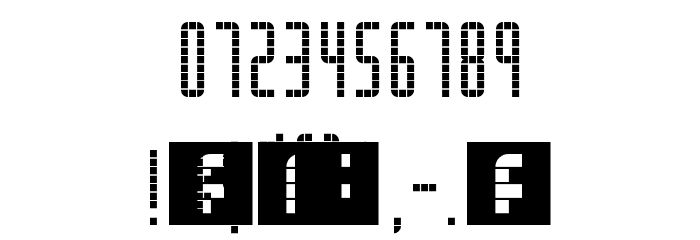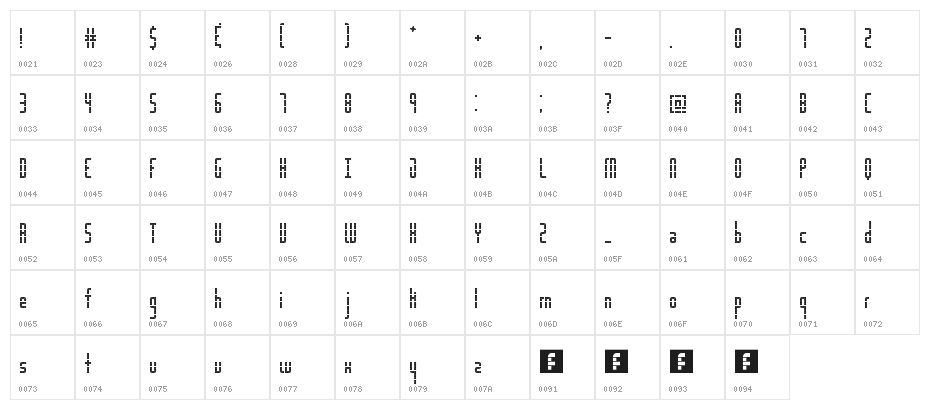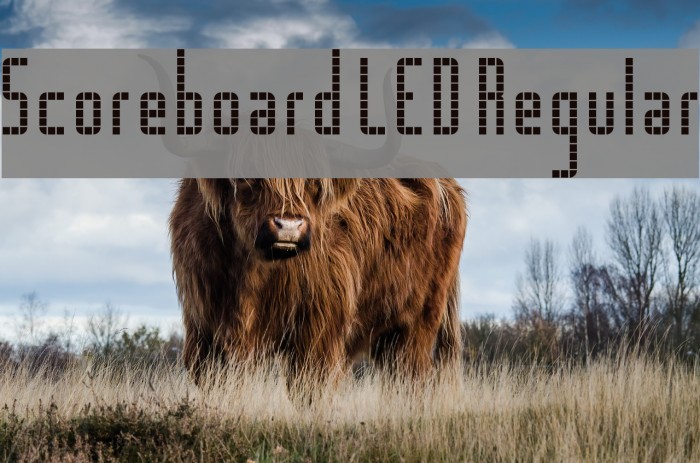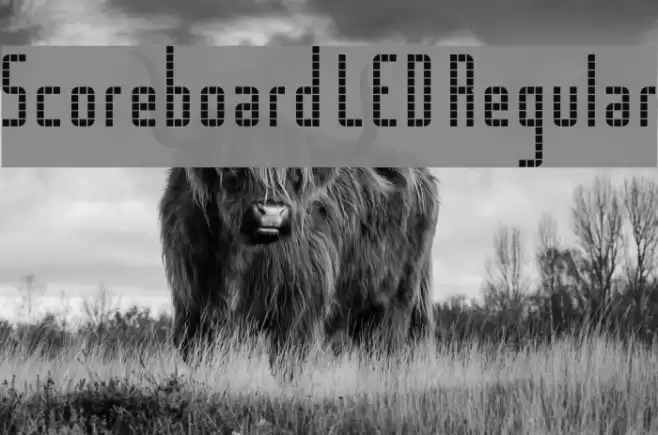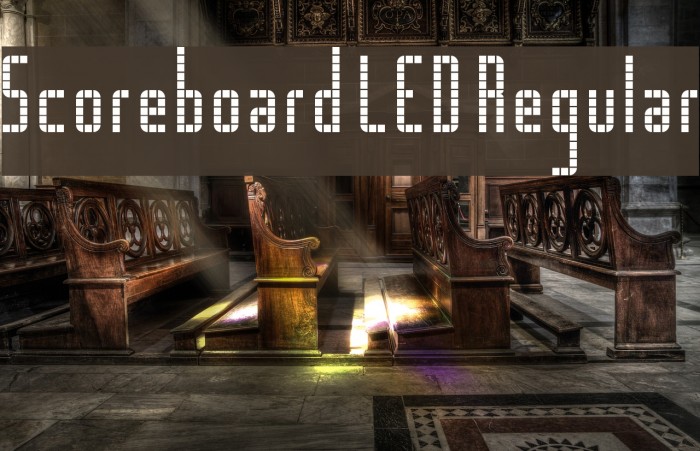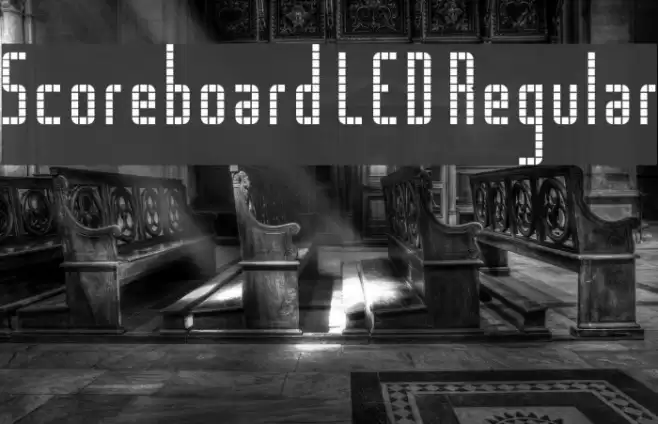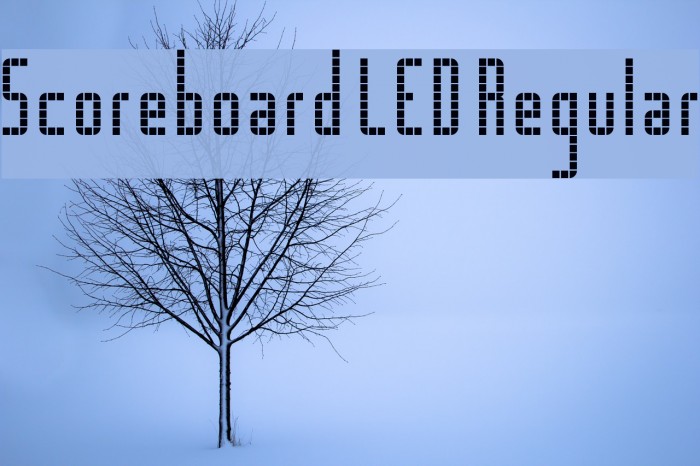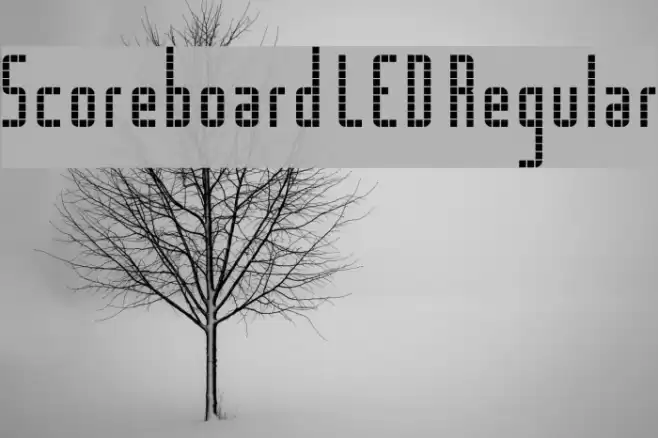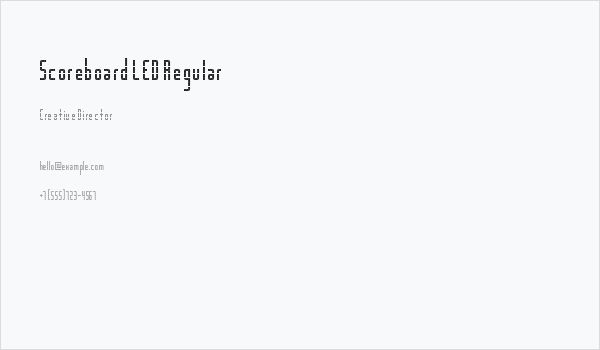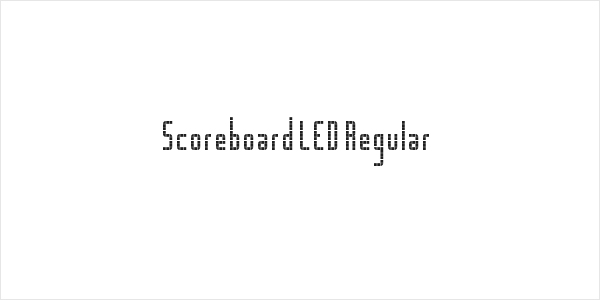
Scoreboard LED Regular Font
Scoreboard LED Regular Description
This font is inspired by the classic LED displays found on scoreboards and digital clocks. Each character is composed of a grid of small, square dots, creating a pixelated appearance that is both retro and modern. The uppercase and lowercase letters maintain a consistent height, with a geometric and monospaced design that ensures uniformity across the text. The numbers and special characters follow the same grid-based structure, enhancing the cohesive look of the font. Its distinct, digital aesthetic makes it ideal for projects that require a technological or vintage electronic feel.
| Use Case | Logos, Digital displays, Tech interfaces |
| Proposed Projects | Ideal for digital-themed designs, retro video games, tech branding, and electronic displays. |